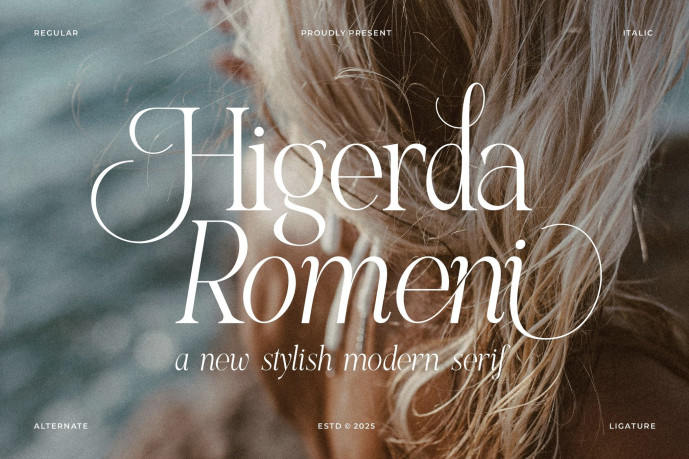
Higedra Romeni Classy Serif Font
Higedra Romeni Classy Serif Font is a an elegant and smooth combine typeface regular and italic serif font. He has a beautiful character. It fits perfectly with invitation card designs, company logos, movie titles, movie names, business cards, book titles, brand names and various other designs. Higedra Romeni Serif is a subtle serif font that exudes sophistication and elegance. Its stylish alternations and ligatures make this font the perfect partner for any project.
• Ligature
• Uppercase and lowercase
• Numbering and Punctuation